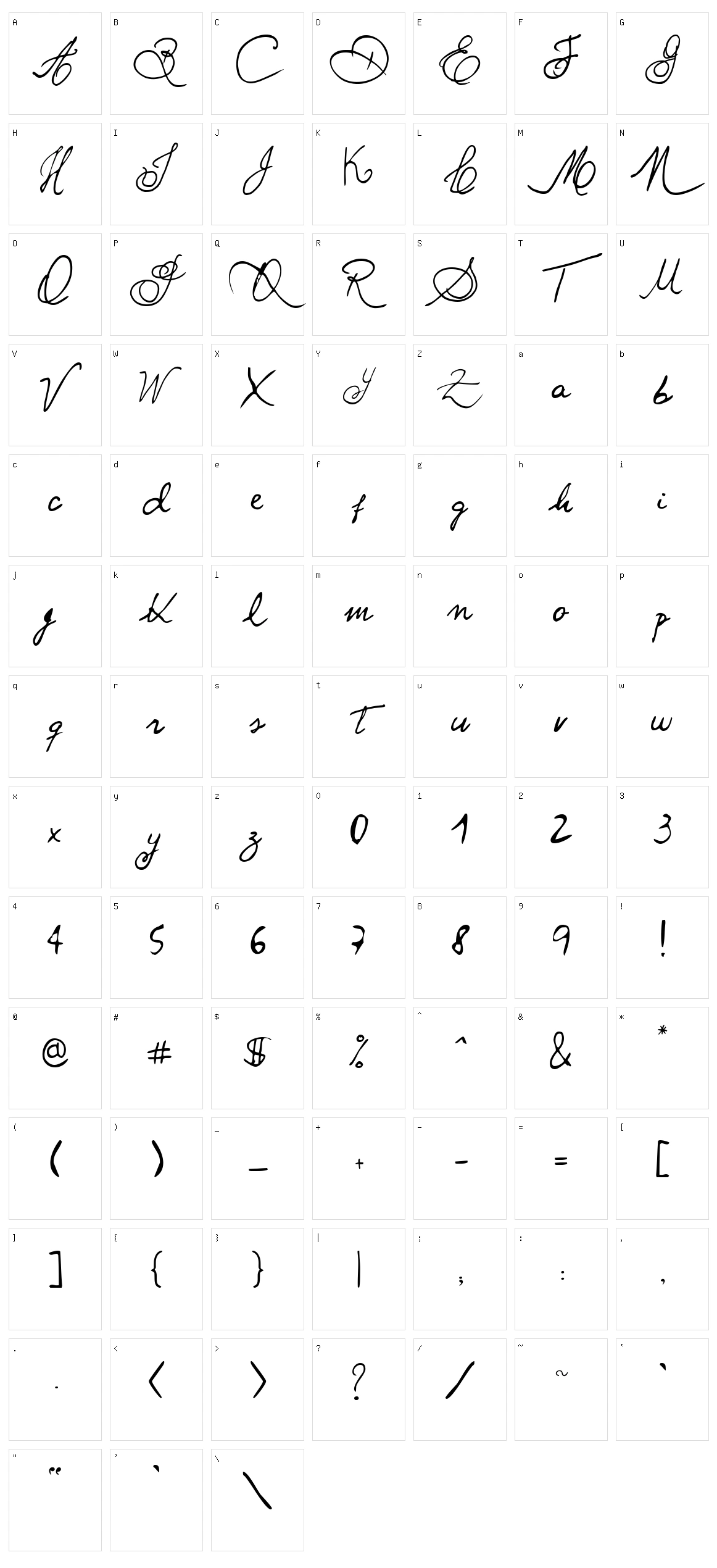
The free font Paulinho Pedra Azul is carefully designed by S?rgio Lu?s Coelho, showcasing a thoughtful balance of creativity and usability and falls under the Script font style. When you download the ZIP file, it contains only 29.99 KB of font files, making it lightweight and quick to download. Please review the license details below to understand permitted usage and distribution rights. If license information is not available, we recommend using this font for personal projects only or contacting the author directly for commercial usage permissions.